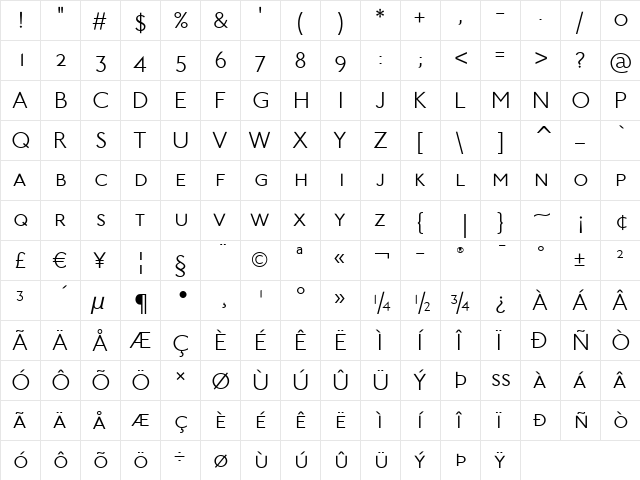
Johnston ITC Light
| Foundry | International Typeface Corporation |
Design Context for Johnston ITC Typeface
Johnston ITC is a composed and adaptable typeface that performs quietly and consistently across a wide range of design contexts. Its slender proportions lend an understated elegance to any composition.